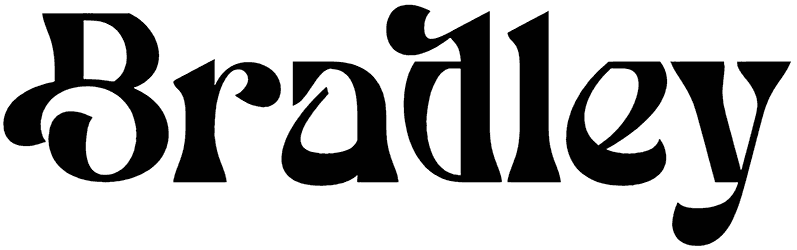
Bradley Font
Turns out a vintage style, like what this retro offers, is one of the most impressive visuals, and if you want to have it for your design, it would be your lucky day. The Bradley font supports all characters, and you can use them for any text, such as a restaurant facade, a fashion advertisement citylight advertisement, or so on. Test this retro font and spotlight your creative aspects.